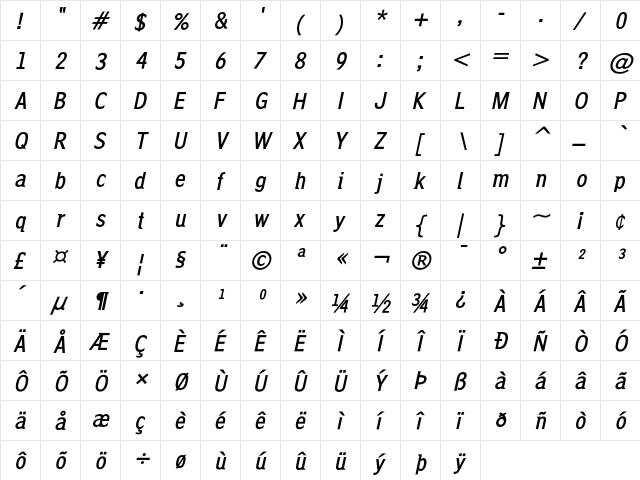
CliqueWedge BoldOblique Font Preview
CliqueWedge BoldOblique
Design Context for CliqueWedge Typeface
CliqueWedge is a composed and adaptable typeface that performs quietly and consistently across a wide range of design contexts. Its italic angle brings a sense of urgency and motion to the letterforms. Its bold stroke weight gives it real presence on the page.
Pro Tip: Try CliqueWedge for annotation and caption copy alongside an upright companion — the contrast in angle creates a dynamic but ordered typographic system.